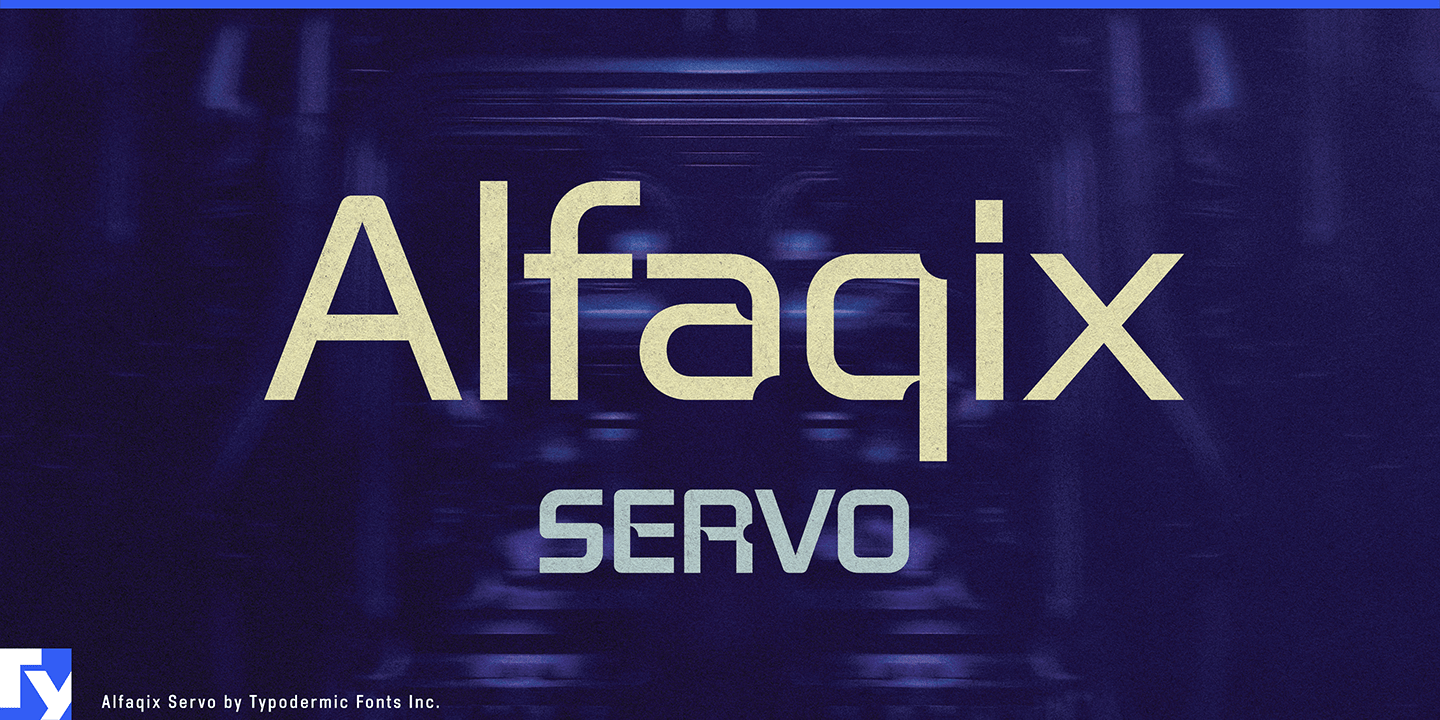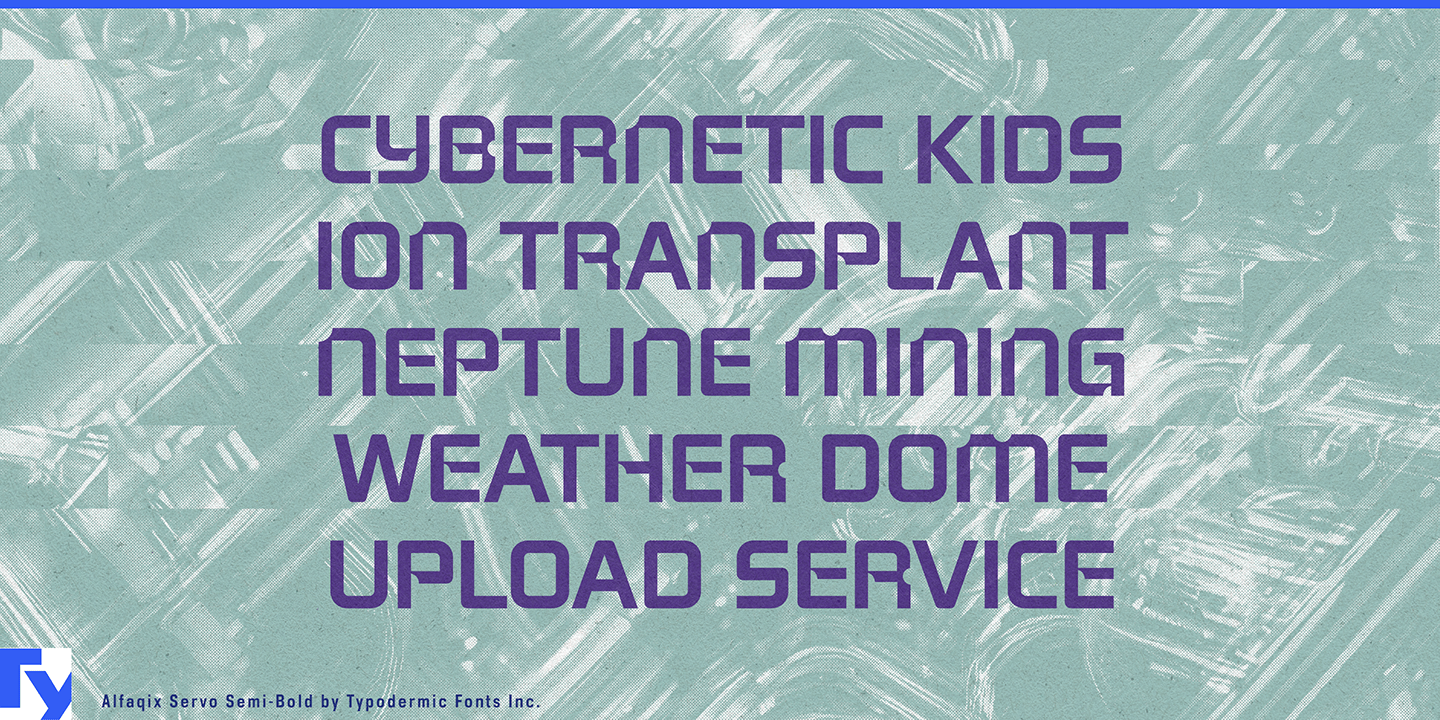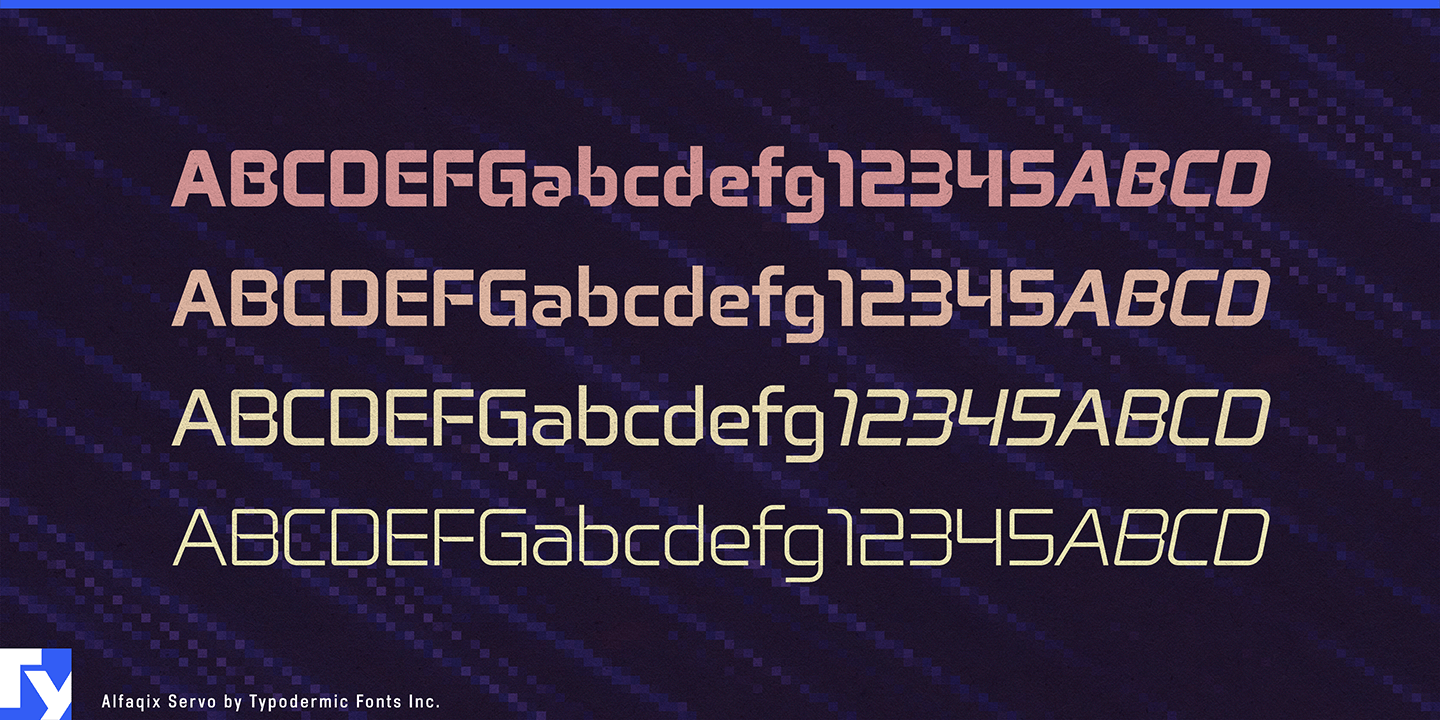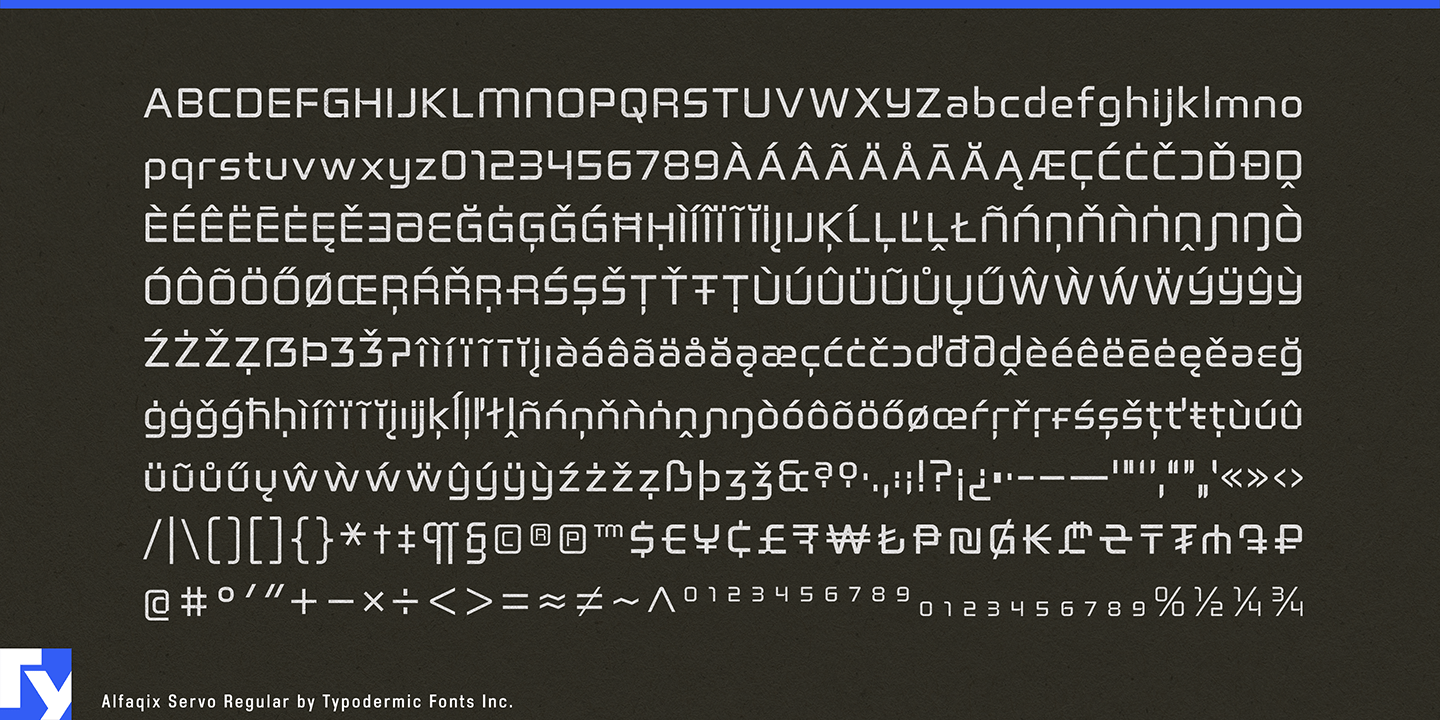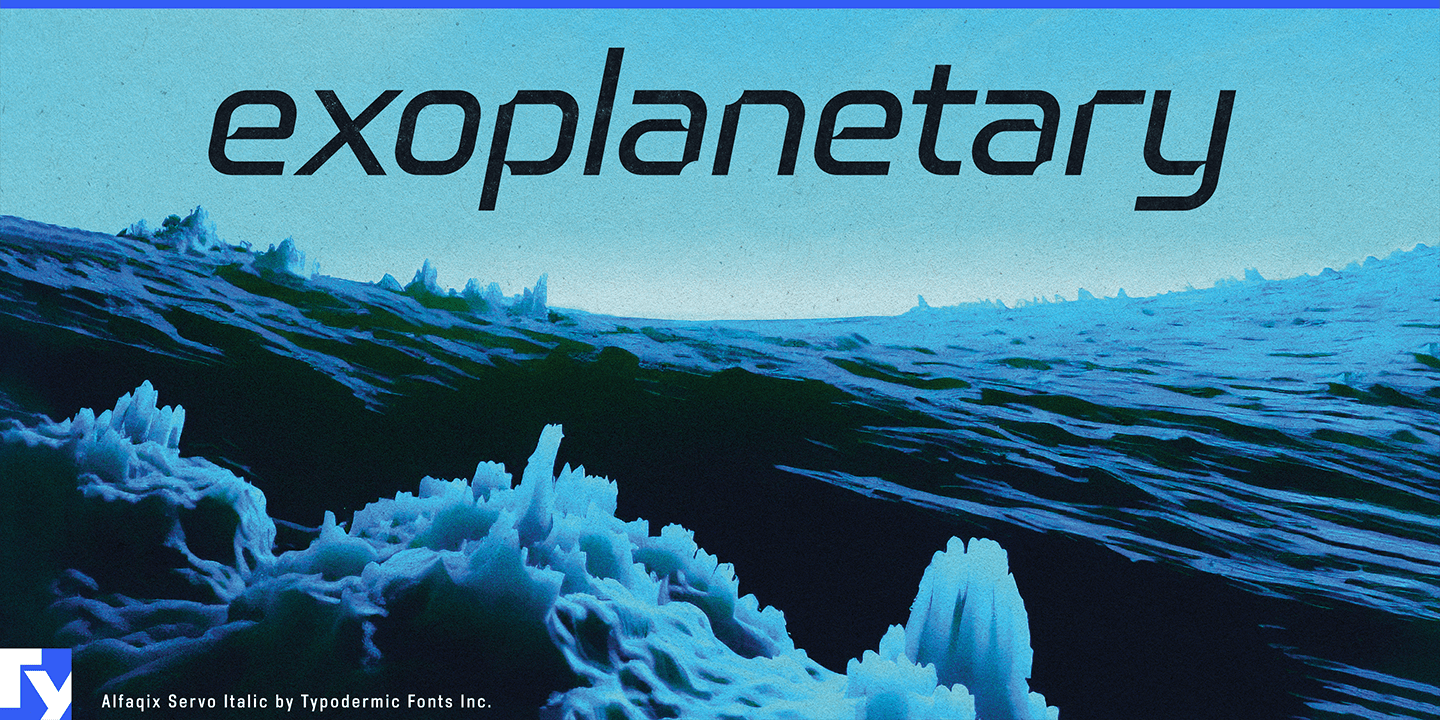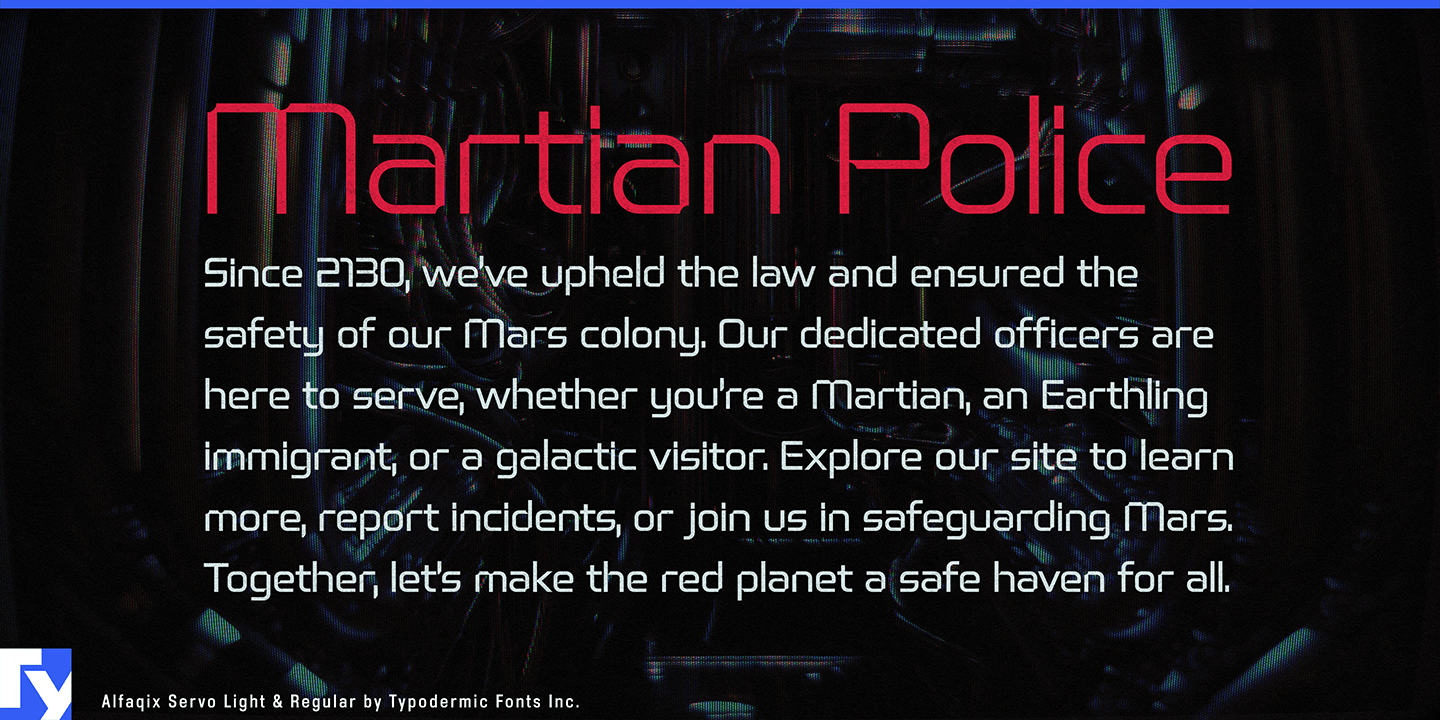
Alfaqix Servo
Font Family by Typodermic
Alfaqix Servo: Typodermic Fonts’ latest innovation in robotic typography. This typeface embodies pure geometric precision, eschewing retro-futuristic clichés for a boldly progressive aesthetic.
Defined by its squarish, modular structure, Alfaqix Servo features distinctive reversed circular notches at corners, evoking the precise movements of advanced servo mechanisms. Available in Light, Regular, SemiBold, and Bold—each with matching italics—it offers a range of expressive possibilities for forward-thinking designs.
Alfaqix Servo excels in contexts where innovation intersects with technology: from cutting-edge UI/UX designs to next-gen product branding. Its support for most Latin-based European writing systems ensures your message maintains its robotic clarity across linguistic boundaries.
Deploy Alfaqix Servo in your projects to speak the language of tomorrow’s machines today. This isn’t just a font—it’s a typographic servo-mechanism, precisely engineered to drive your designs into the future.